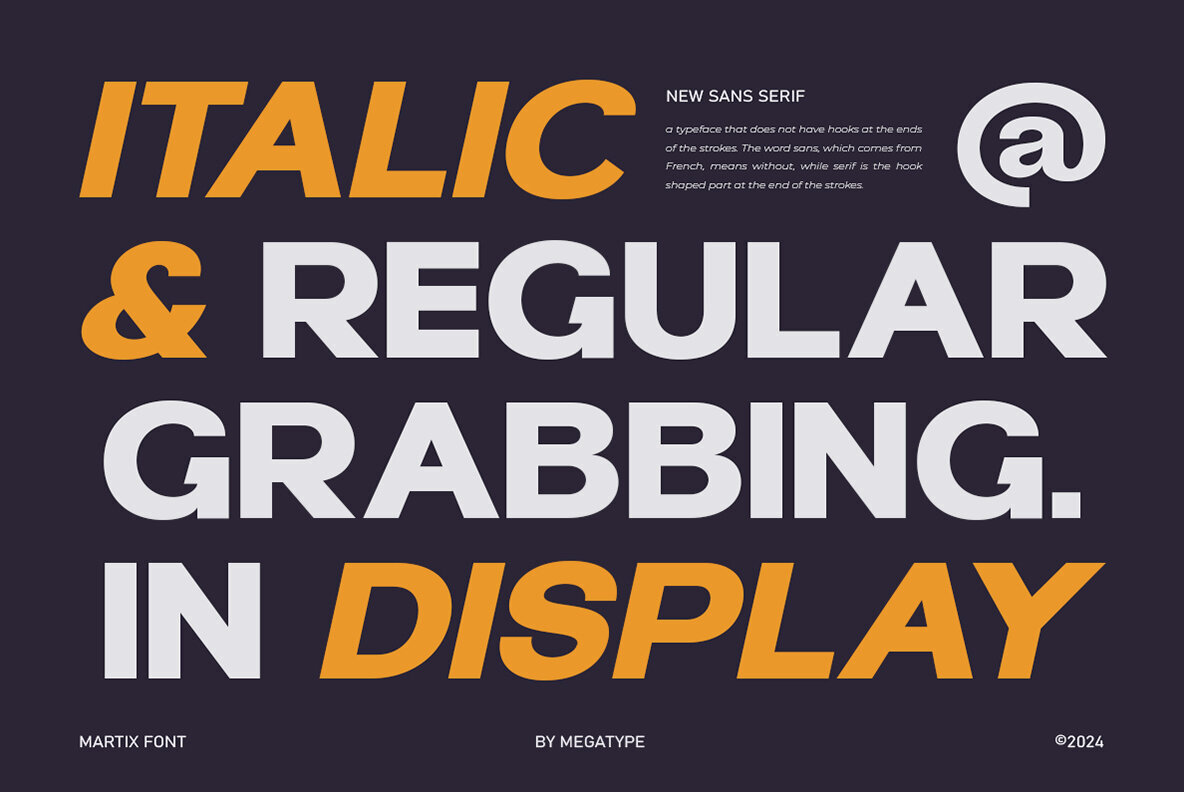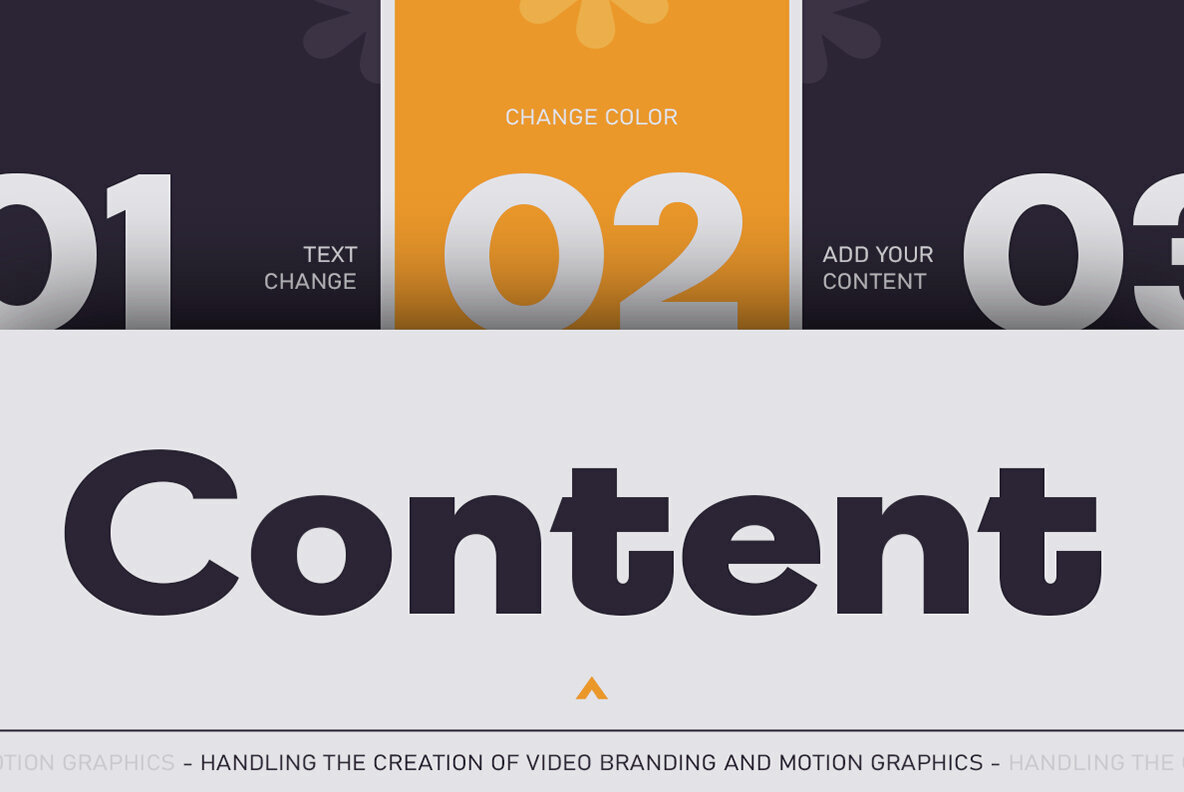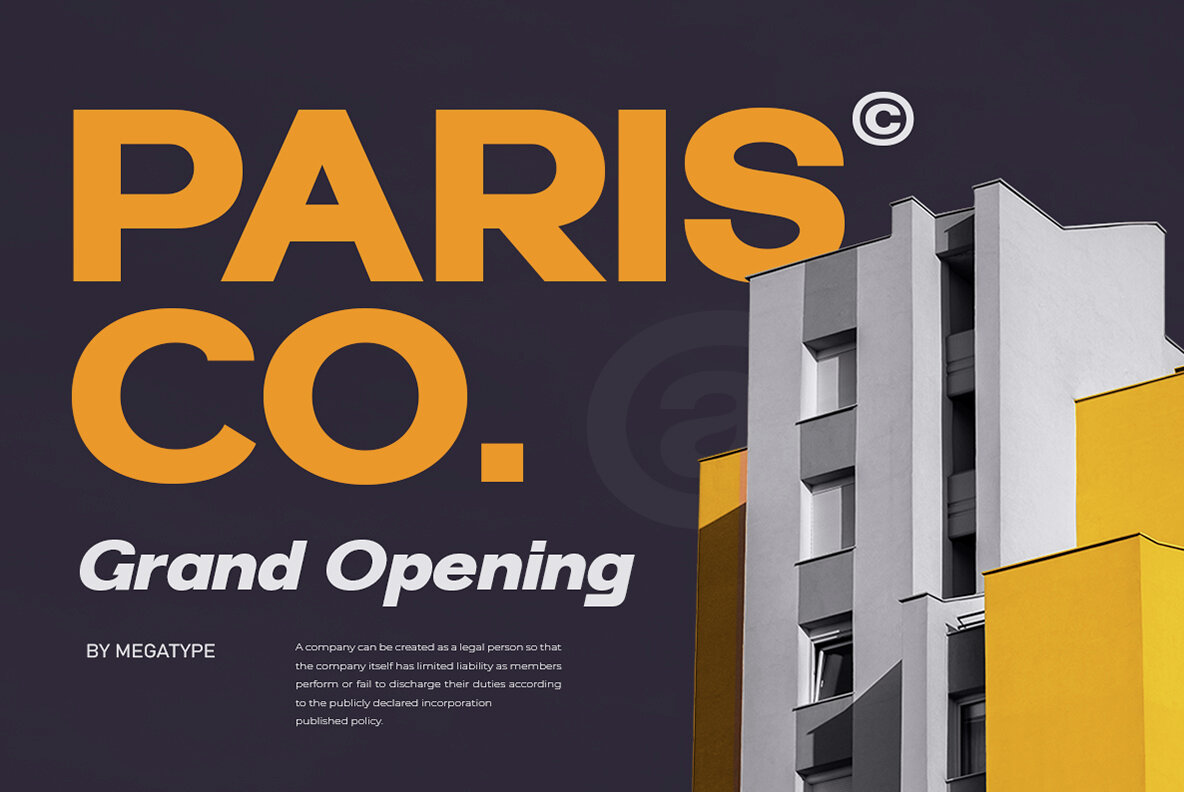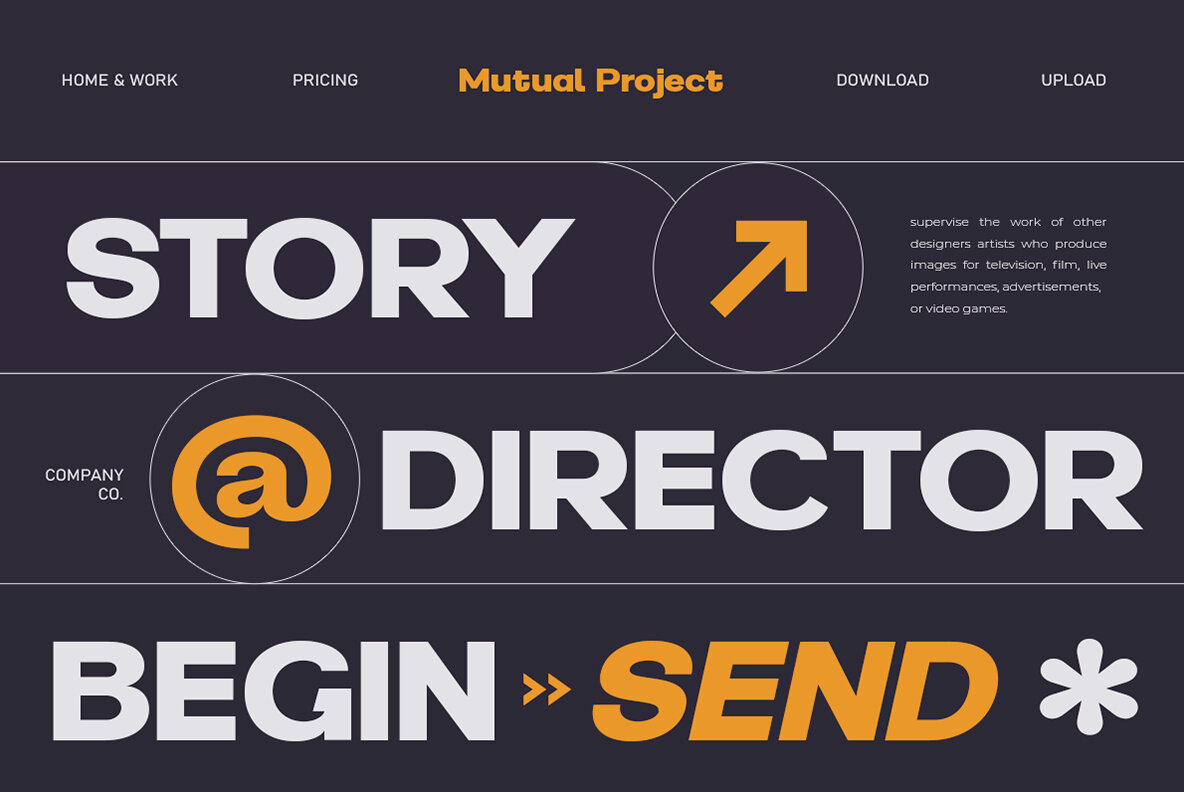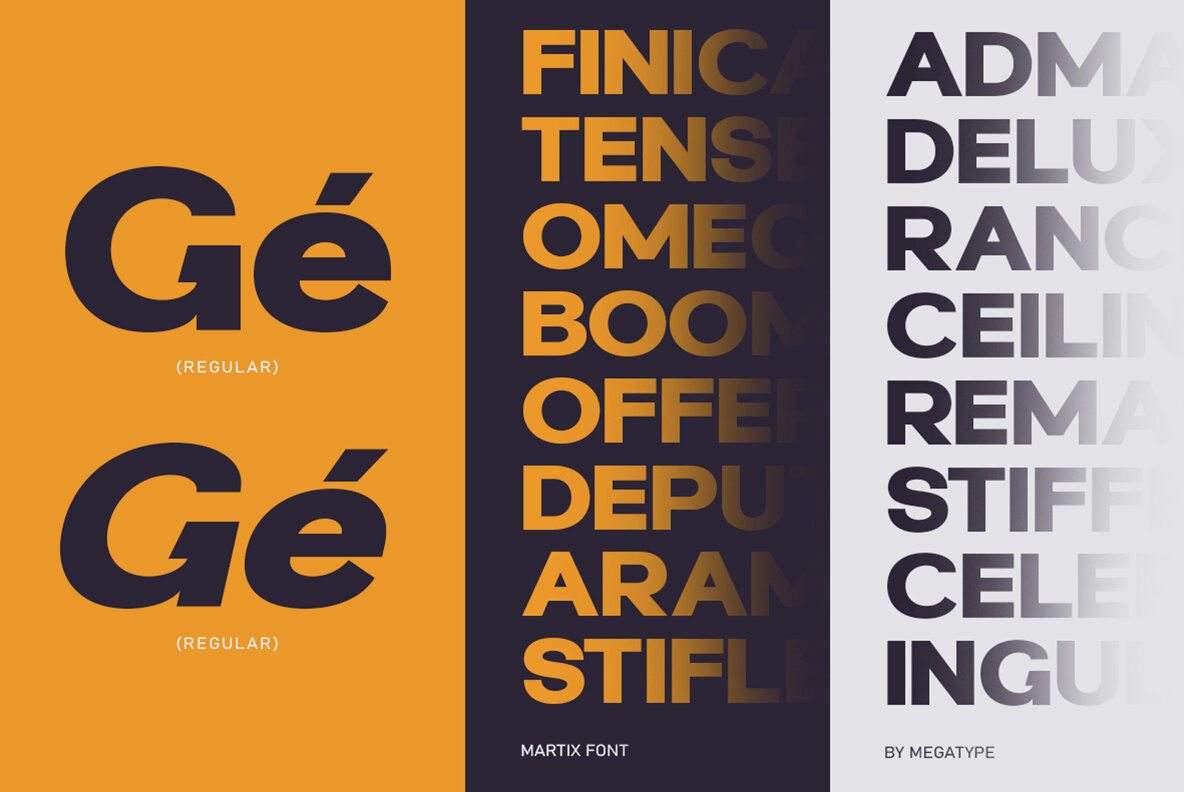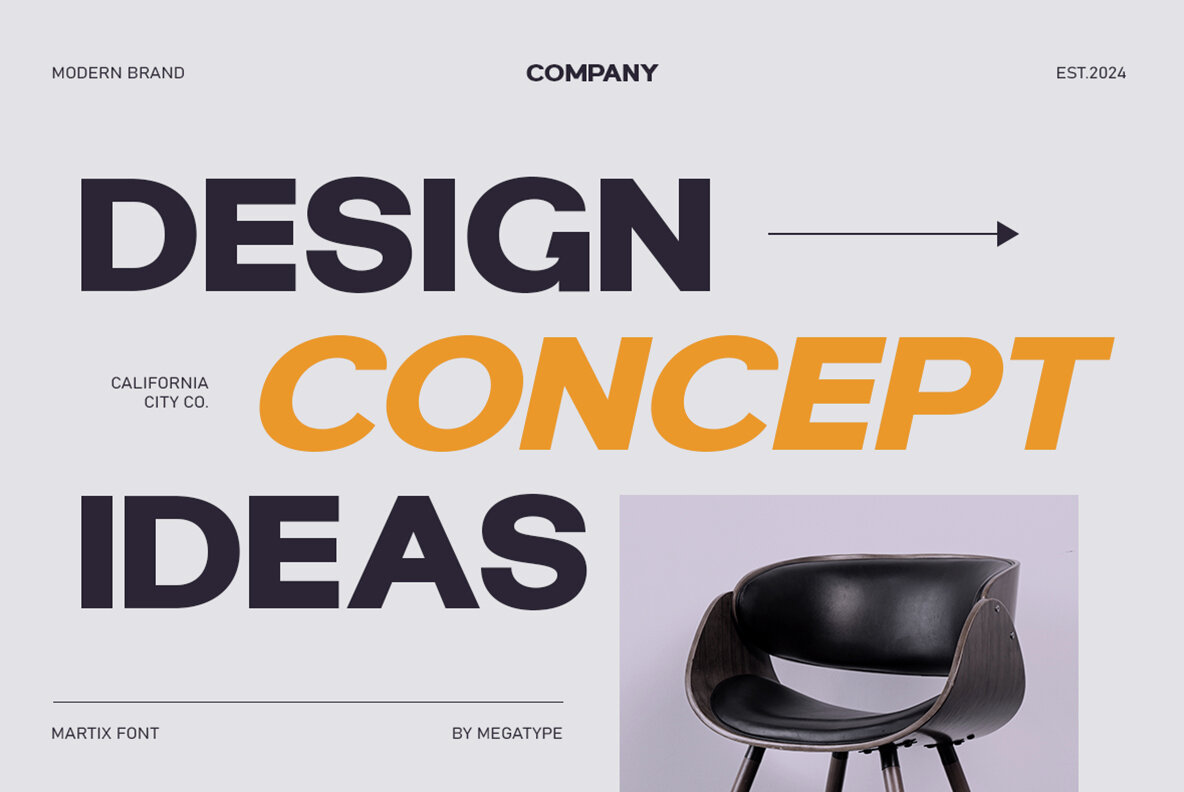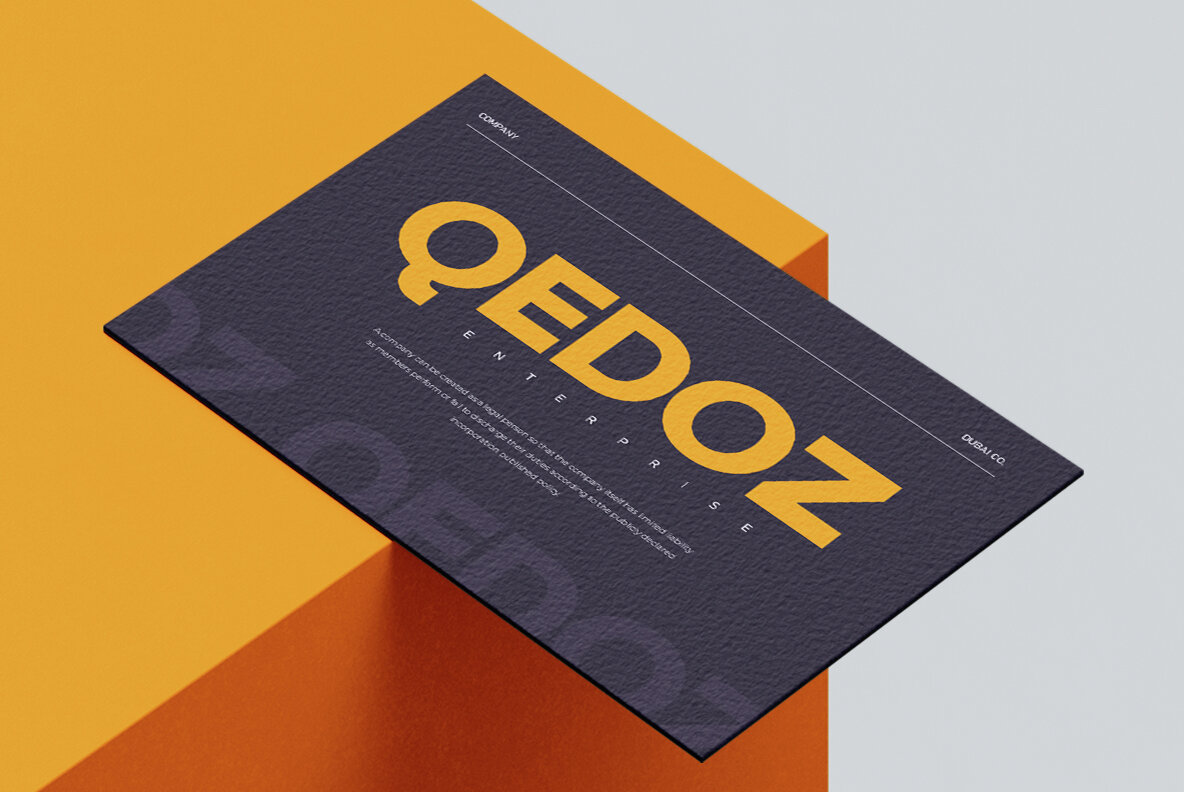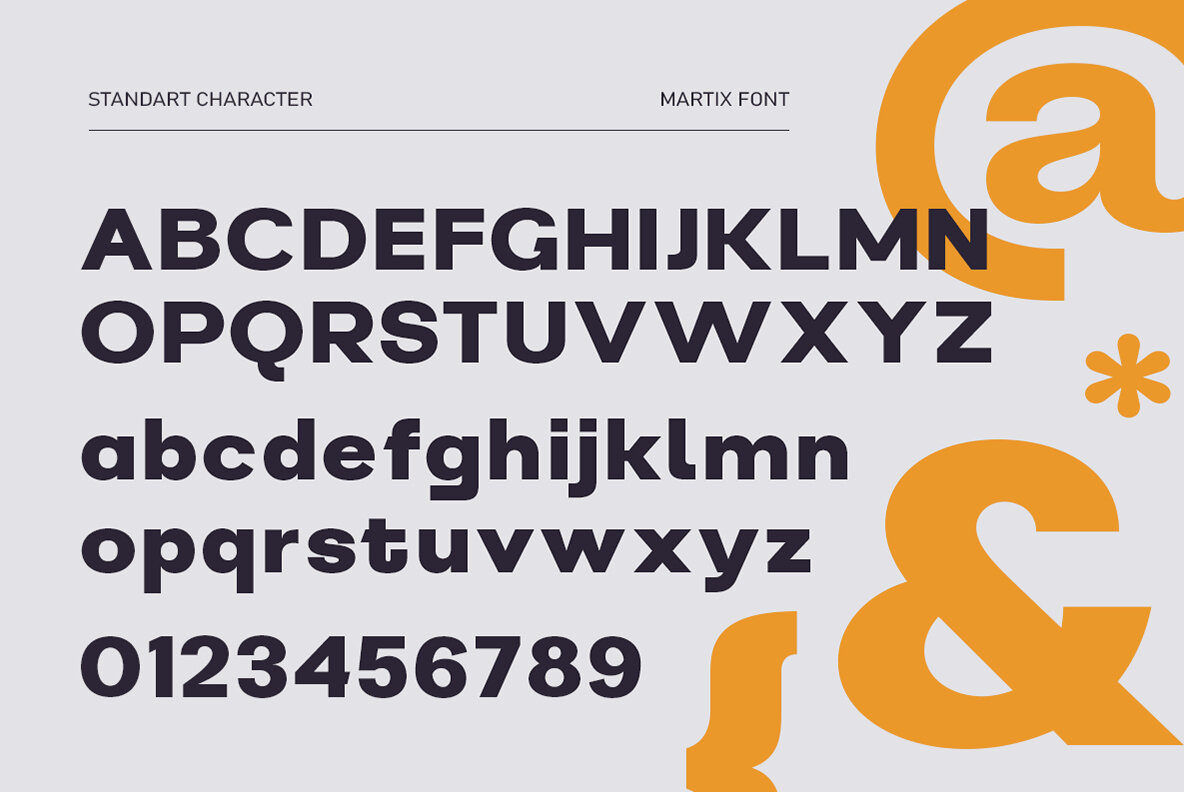
Martix Font
This font is a bold, sans-serif typeface characterized by its geometric shapes and clean lines. Its strong and impactful appearance makes it well-suited for headlines, logos, and branding materials where clear communication is paramount. The font's contemporary design ensures readability and versatility, making it an excellent choice for both print and digital mediums.